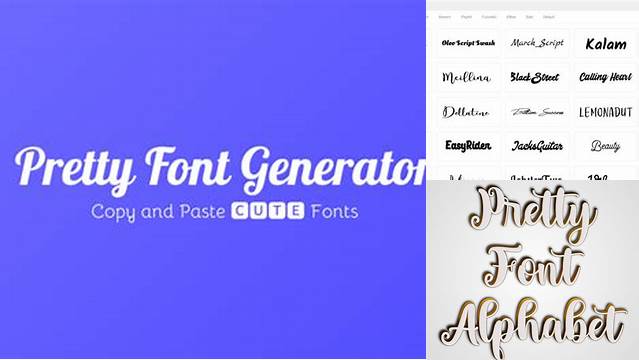
Pretty Fonts Alphabet Generator: Create Unique Text!
Hey guys! Ever wanted to make your text look super cool and unique? Well, you've come to the right place! We're diving deep into the world of pretty fonts alphabet generators, and trust me, it's a game-changer. Whether you're jazzing up your social media posts, designing invitations, or just having fun with typography, understanding how to use these generators can really elevate your creative game. So, let's jump in and explore the magic of making your words look absolutely stunning!
What is a Pretty Fonts Alphabet Generator?
Let's start with the basics. What exactly is a pretty fonts alphabet generator? Simply put, it's a tool that allows you to create text using a variety of stylish and eye-catching fonts. Forget about boring old Arial or Times New Roman; these generators offer a plethora of options, from elegant scripts to funky block letters. You can transform ordinary text into something extraordinary with just a few clicks. The beauty of a pretty fonts alphabet generator is its simplicity and versatility. It's like having a digital calligraphy set at your fingertips, without needing to learn any fancy penmanship. These tools often use Unicode characters to produce these unique styles, meaning you can copy and paste them across various platforms without losing the formatting. Think of all the possibilities – your Instagram captions, your birthday cards, even your presentations can get a serious style upgrade!
Why Use a Pretty Fonts Alphabet Generator?
Okay, so you know what it is, but why should you use a pretty fonts alphabet generator? There are tons of reasons! First off, it's a fantastic way to make your content stand out. In a world of endless scrolling and information overload, grabbing attention is crucial. A unique font can be the difference between someone breezing past your post and actually stopping to read it. Plus, using different fonts can inject personality and emotion into your text. A delicate script font might be perfect for a romantic message, while a bold, chunky font could be ideal for announcing something exciting. Beyond the aesthetic appeal, these generators are incredibly convenient. They save you the time and effort of searching for and installing fonts on your computer. Everything is right there, ready to go. And let's be honest, it's just plain fun to experiment with different styles and see how they transform your words. So, if you're looking to add some flair to your text, a pretty fonts alphabet generator is definitely worth exploring!
How to Choose the Right Pretty Font
Choosing the right font is like picking the perfect outfit – it needs to match the occasion and the message you're trying to convey. With so many options available in a pretty fonts alphabet generator, it can feel a bit overwhelming at first. But don't worry, we've got you covered! Start by thinking about the overall vibe you're going for. Is it elegant and sophisticated? Fun and playful? Bold and assertive? Once you have a clear sense of the tone, you can start narrowing down your choices. Consider the context where the font will be used. A super elaborate, swirly font might look amazing on a wedding invitation, but it could be difficult to read in a long paragraph of text. Legibility is key, especially for body text. Think about the impact of your font choice. A handwritten-style font can add a personal touch, while a geometric font might project a more modern and professional image. Don't be afraid to play around with different combinations, but try to stick to a maximum of two or three fonts in a single design to avoid visual clutter. Ultimately, the best font is the one that resonates with you and effectively communicates your message.
Best Pretty Fonts Alphabet Generators Online
Alright, let's get down to the nitty-gritty – where can you find these magical pretty fonts alphabet generators? The good news is, the internet is brimming with options! From simple, no-frills tools to more sophisticated platforms, there's something for everyone. One popular choice is LingoJam, which offers a range of cool font styles with a super user-friendly interface. Just type your text, and it instantly generates variations in different fonts. Another great option is Cool Fancy Text Generator, which not only provides a variety of fonts but also allows you to create decorative text symbols and emojis. If you're looking for something a bit more advanced, FontSpace is a fantastic resource. While not strictly a generator, it offers a huge library of free fonts that you can download and use in your projects. For mobile users, there are also plenty of apps available, like Fonts for Instagram, which makes it easy to create stylish text directly on your phone. The key is to explore and find a generator that suits your needs and preferences. Most of these tools are free to use, so you can experiment without any commitment. Have fun trying out different platforms and discovering your favorites!
Using Pretty Fonts on Social Media
Social media is where pretty fonts really shine! Think about it – your posts are constantly competing for attention in a sea of content. Using a unique font can be a fantastic way to make your captions, bios, and stories pop. Platforms like Instagram, Twitter, and Facebook offer limited font options by default, which can make your profile look pretty generic. But with a pretty fonts alphabet generator, you can easily bypass these limitations and inject some personality into your online presence. Imagine your Instagram bio rocking a sleek, modern font, or your Twitter updates sporting a playful, handwritten style. It's all about creating a cohesive visual identity that reflects your brand or personal style. When using pretty fonts on social media, it's important to keep legibility in mind. While a super fancy font might look cool, it won't do you any good if people can't read it. Stick to fonts that are clear and easy to understand, especially for longer captions or bios. Also, consider the overall aesthetic of your profile. Choose fonts that complement your photos and other visual elements. A little bit of font flair can go a long way in making your social media presence more engaging and memorable.
Pretty Fonts for Instagram
Instagram is a visual platform, so making your text stand out is crucial. Pretty fonts can give your captions, stories, and bio that extra oomph. There are a plethora of generators specifically designed for Instagram, making it super easy to create stylish text that catches the eye. Think about using a cursive font for a romantic post, or a bold, sans-serif font for announcing a sale. Your bio is prime real estate for a pretty font, as it's one of the first things people see when they visit your profile. A well-chosen font can instantly communicate your brand's personality and make a lasting impression. When creating Instagram stories, pretty fonts can add a fun and engaging element to your videos and images. Use them to highlight important information, ask questions, or simply add some visual flair. Remember to keep your font choices consistent with your overall Instagram aesthetic. If you have a minimalist feed, a simple and elegant font might be the best choice. If your feed is more vibrant and playful, don't be afraid to experiment with bolder and more creative fonts. The key is to use pretty fonts strategically to enhance your content and engage your audience.
Pretty Fonts for Twitter
Twitter's character limit means every word counts, and the font you use can make those words even more impactful. Pretty fonts can help your tweets stand out in a fast-moving timeline. While Twitter's default font is functional, it's not exactly exciting. A pretty font can add a touch of personality and make your tweets more visually appealing. Consider using a bold font to highlight important announcements or a playful font for sharing fun updates. Your Twitter bio is another great place to use a pretty font. It's a concise way to communicate your brand or personal style to potential followers. Choose a font that reflects your personality and makes your bio more memorable. When using pretty fonts on Twitter, readability is key. Avoid fonts that are too ornate or difficult to decipher, especially in short tweets. Stick to fonts that are clear and easy to read, even on small screens. Think about using different fonts to create visual hierarchy within your tweets. For example, you could use a bold font for the main message and a regular font for supporting details. A little bit of font flair can go a long way in making your tweets more engaging and shareable.
Pretty Fonts for Facebook
Facebook is a platform for connecting with friends, family, and communities, and using pretty fonts can make your posts more engaging and personal. Whether you're sharing updates, posting photos, or joining discussions, a stylish font can help your content stand out in a crowded newsfeed. Think about using a handwritten-style font for sharing heartfelt messages or a bold font for announcing exciting news. Your Facebook profile is a reflection of your online identity, and a pretty font can add a touch of personality to your name, bio, and other profile information. Choose a font that represents your style and makes your profile more memorable. When using pretty fonts on Facebook, it's important to consider your audience. A super fancy font might not be the best choice for professional posts or serious discussions. Stick to fonts that are appropriate for the context and easy to read. Remember that Facebook's algorithm prioritizes content that is engaging and visually appealing. Using pretty fonts can be a simple way to boost your visibility and reach a wider audience. Experiment with different fonts to see what resonates with your friends and followers. A well-chosen font can make your Facebook posts more engaging and shareable.
Generating Cursive Fonts
Cursive fonts are a classic choice for adding a touch of elegance and sophistication to your text. A pretty fonts alphabet generator can be a fantastic tool for creating beautiful cursive text that stands out. Cursive fonts evoke a sense of handwriting, making them perfect for invitations, thank-you notes, and other personal messages. They can also add a touch of formality to professional documents and presentations. When generating cursive fonts, it's important to choose a style that is both beautiful and legible. Some cursive fonts can be overly ornate, making them difficult to read, especially in long passages of text. Look for fonts that have a good balance between style and clarity. Think about the mood you want to convey. A flowing, graceful cursive font might be ideal for a wedding invitation, while a bolder, more angular cursive font could be used for a business letter. Experiment with different generators to find the perfect cursive font for your needs. Many online tools offer a variety of cursive styles, from traditional scripts to modern interpretations. A well-chosen cursive font can add a touch of class to any project, making your text more visually appealing and memorable.
The Future of Pretty Fonts
The world of pretty fonts is constantly evolving, driven by technological advancements and creative innovation. What can we expect to see in the future? One trend is the rise of variable fonts, which offer a single font file that can be customized in various ways, such as weight, width, and slant. This allows for greater flexibility and efficiency in web design. Another trend is the increasing use of artificial intelligence (AI) in font design. AI-powered tools can help designers create unique and innovative fonts more quickly and easily. We can also expect to see more personalized and dynamic fonts, which adapt to the user's preferences and context. Imagine a website that adjusts its font based on the user's reading habits or a social media platform that offers custom font recommendations. The future of pretty fonts is bright, with exciting possibilities for designers and users alike. As technology continues to advance, we can expect to see even more creative and innovative ways to express ourselves through typography. So, stay tuned and get ready to explore the ever-evolving world of pretty fonts!